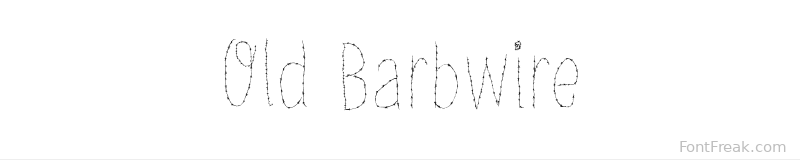
Old Barbwire
The Old Barbwire font by Galdino Otten Fonts is a captivating decorative typeface that draws inspiration from rustic and vintage aesthetics. This unique font, released in 2017, features an unmistakable hand-drawn quality, evoking a sense of nostalgia and charm. Its design is characterized by thin, uneven stroke weights that mimic the appearance of twisted wire, adding a playful yet rugged feel to any text.
Visually, the Old Barbwire font displays a high contrast between its delicate lines and the overall weight, which gives it a distinctive character. The spacing between the letters is intentionally loose, enhancing readability while maintaining an organic flow. This font is adorned with subtle decorative elements that enhance its rustic vibe, making it perfect for creating a sense of authenticity in various projects.
Ideal for a variety of applications, Old Barbwire is particularly suited for wedding invitations, where its whimsical nature can add a personal touch. It's also an excellent choice for movie posters, especially those in the western or indie genres, as it conveys a strong thematic presence. Furthermore, restaurant menus featuring a rustic or country theme will benefit from the font's unique style, making dishes feel more inviting. Small business owners and content creators looking to brand their products or services will find this font appealing for marketing materials that require a distinctive edge.